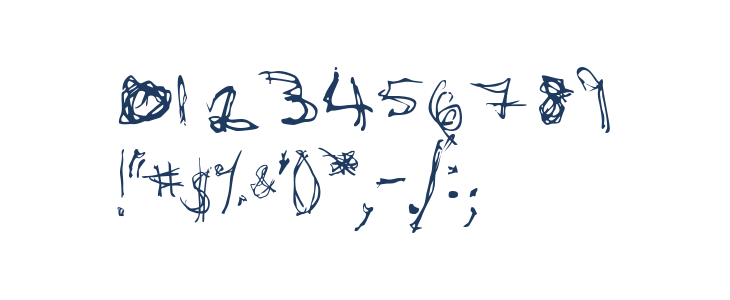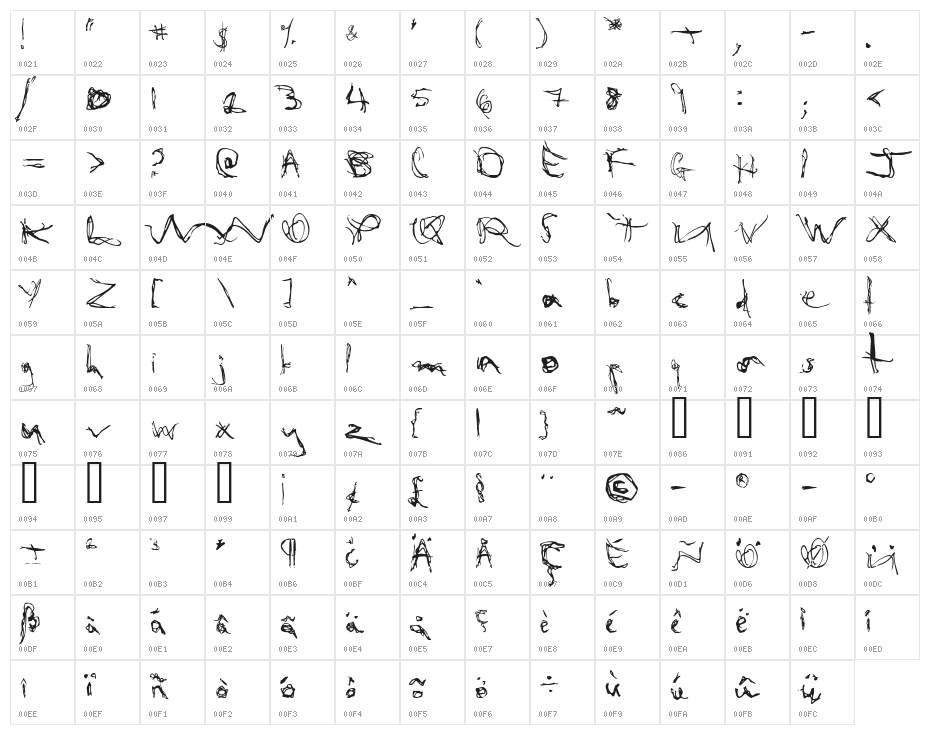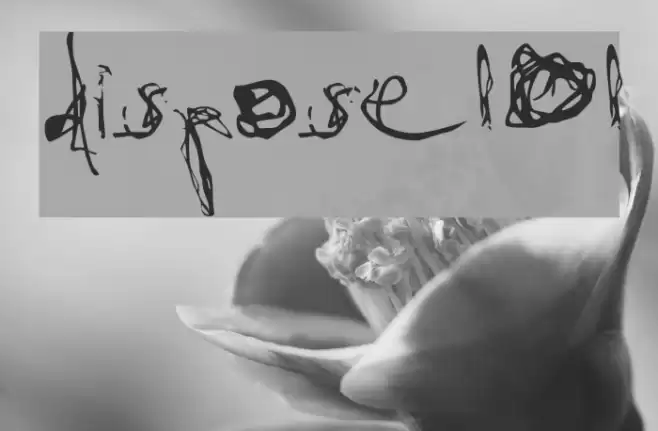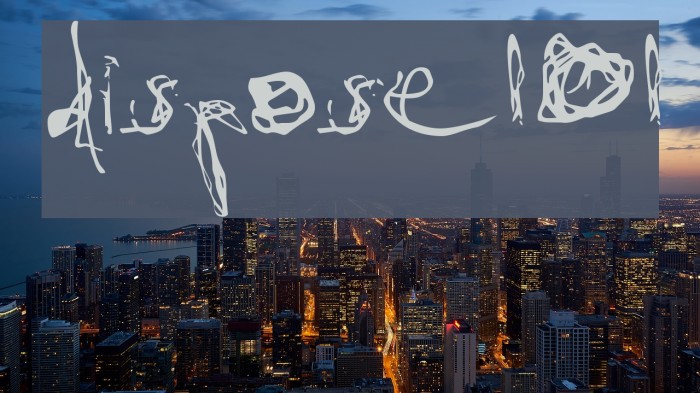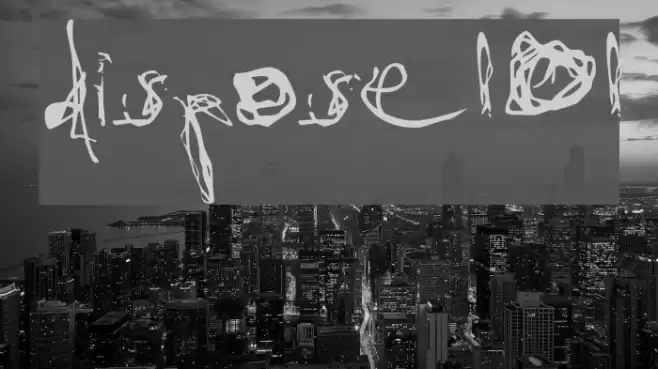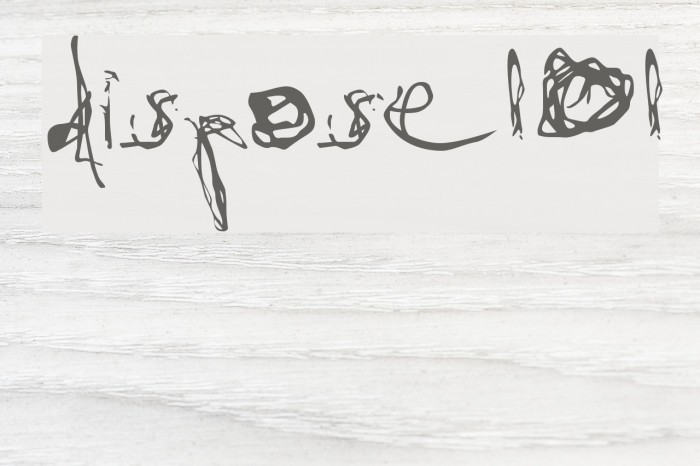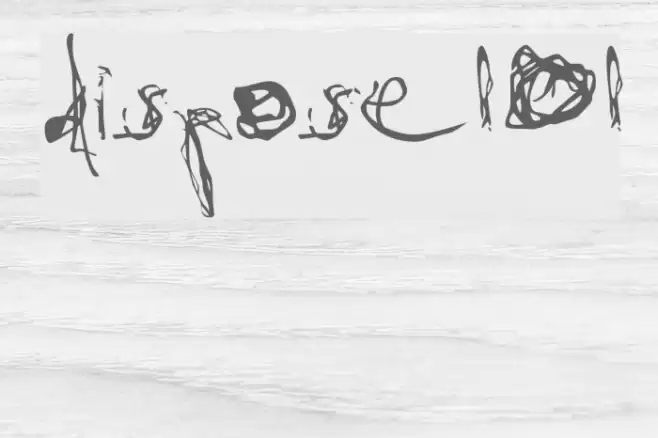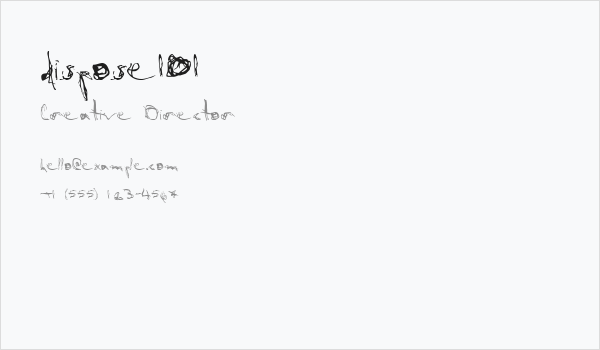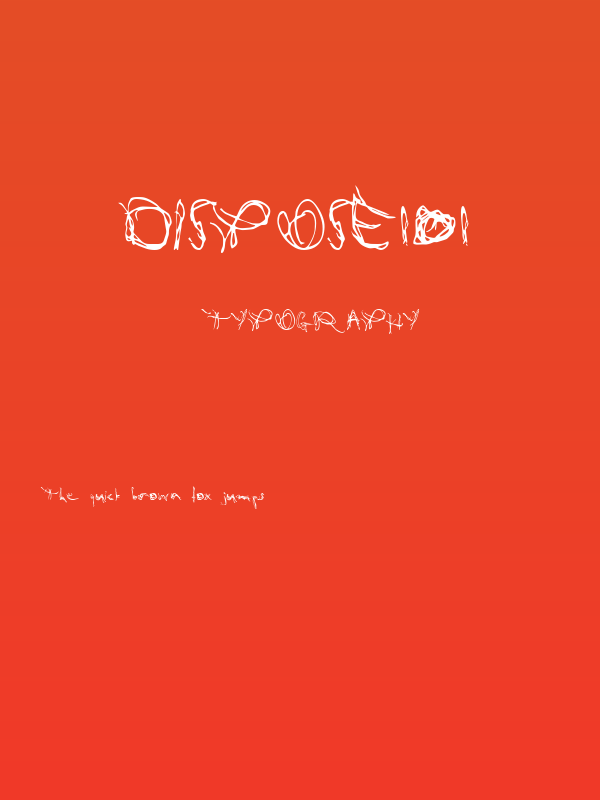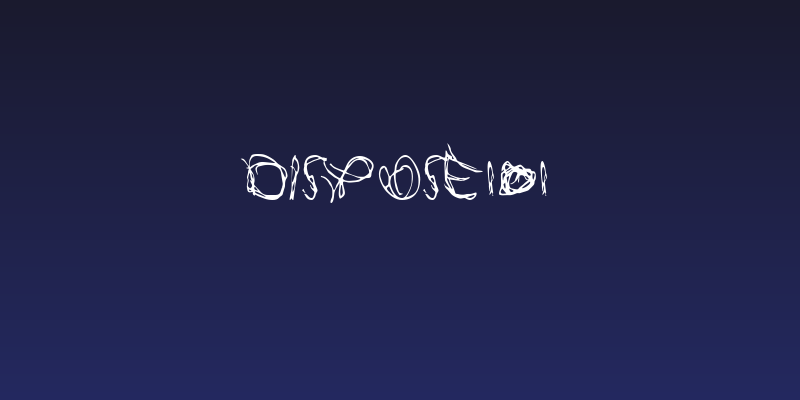
dispose101 Font
dispose101 Description
This font exhibits a highly expressive and chaotic style, characterized by its erratic and scribbled appearance. The letters are irregular and vary significantly in size and shape, giving it a raw and unrefined look. The strokes are thick and uneven, with a sense of movement and energy. This font captures a sense of spontaneity and artistic flair, making it stand out with its unique and unconventional design. The characters are interconnected in a way that suggests a hurried, almost frantic handwriting, which adds to its dynamic and edgy aesthetic.
| Use Case | Logos, Posters, Artistic projects |
| Proposed Projects | Ideal for artistic projects, album covers, graffiti-inspired designs, or any creative work that requires a bold, unconventional typeface. |